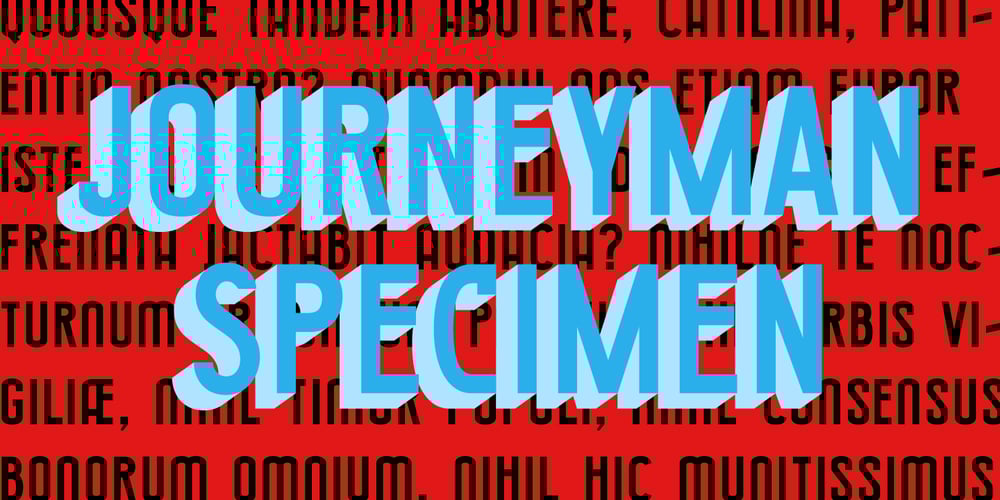
Journeyman Font Family was designed by Cato Hernes Jensen and published by Cafe.no. Journeyman contains 3 styles and family package options. Journeyman is an all caps layered display typeface in the sign painter tradition. It has normal width caps in lowercase position and a wider caps in uppercase position. Letters in lowercase position are slightly more rounded than those in uppercase position thus providing two styles. Journeyman supports languages with latin characters and ligatures as well as Greek and Cyrillic. The normal front layer is Line while Silhouette is usually put at the back for a three dimensional effect. Other layer arrangements are possible. The type works well for shop displays, poster work, menus, signage and other purposes where you want the type to have impact.